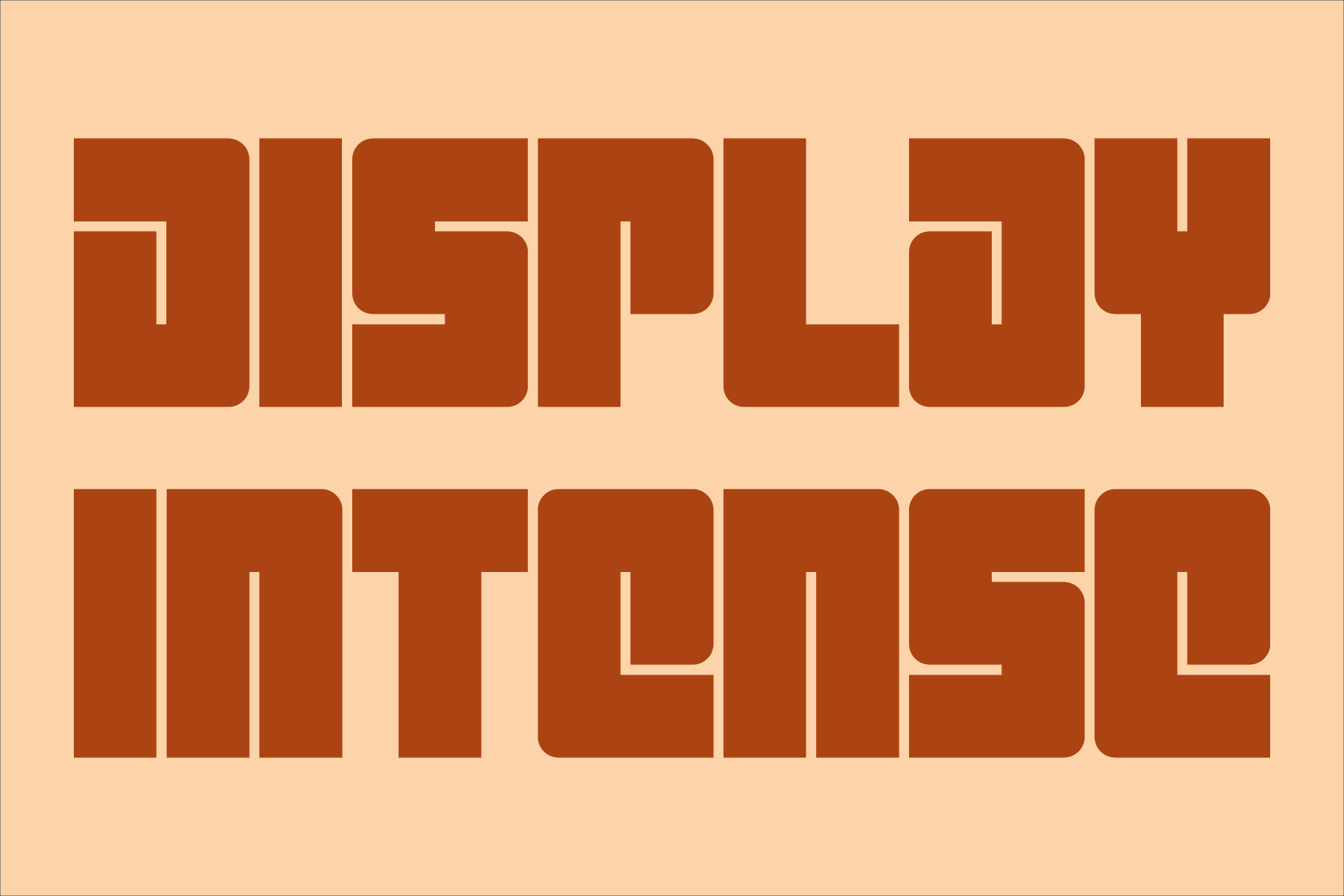
Display Intense Font
Display Intense is a display font not intended for text use or for use at small sizes. It was designed specifically for display, headline, logotype, branding, and similar applications. It has an uppercase and small caps alphabet, numbers, small numbers, dollar, pound and euro signs, and basic punctuation.